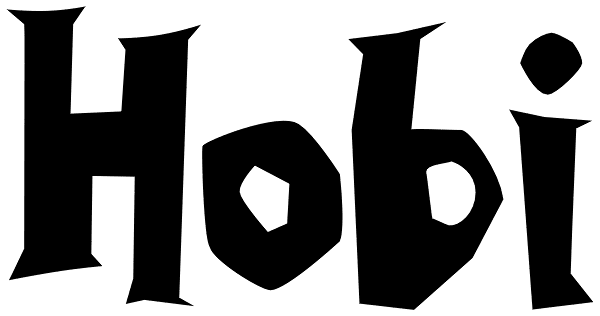
Hobi
Hobi was influenced by Spaza. In it I tried to highlight the dissonance between the irregular outlines of the characters and the formality suggested by the serifs of the characters. Differences from Spaza are: -- character heights from the baseline...